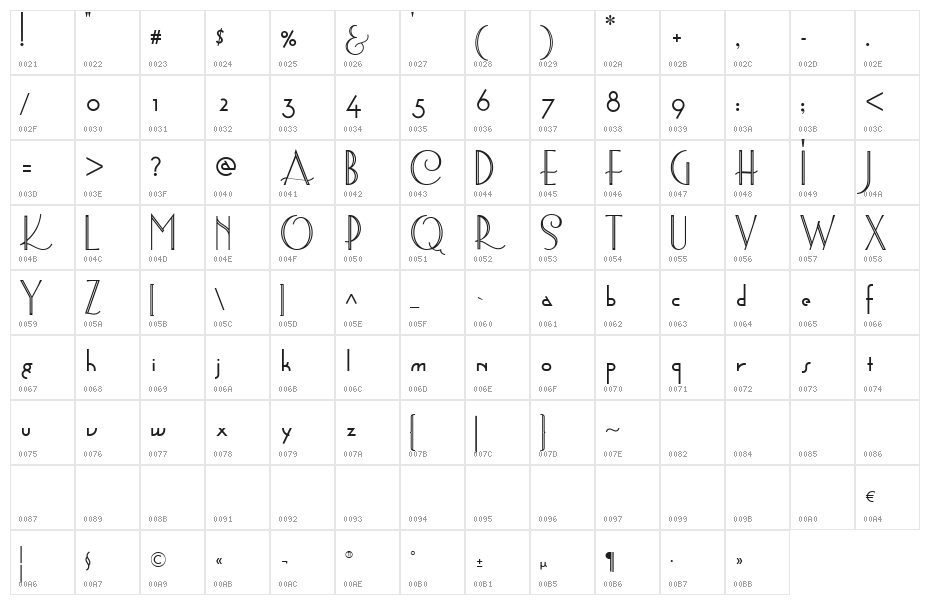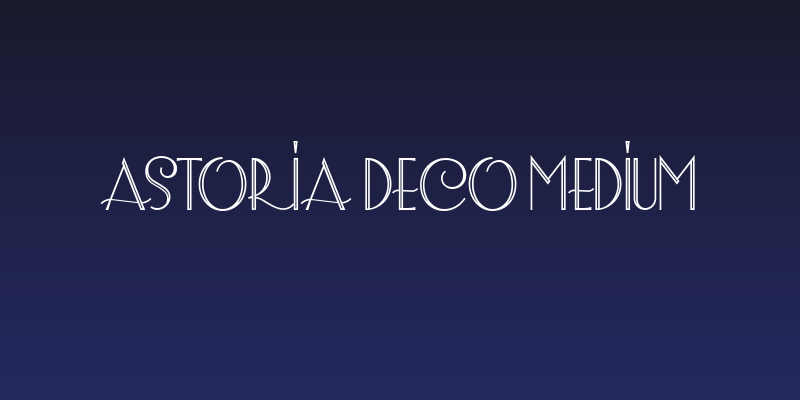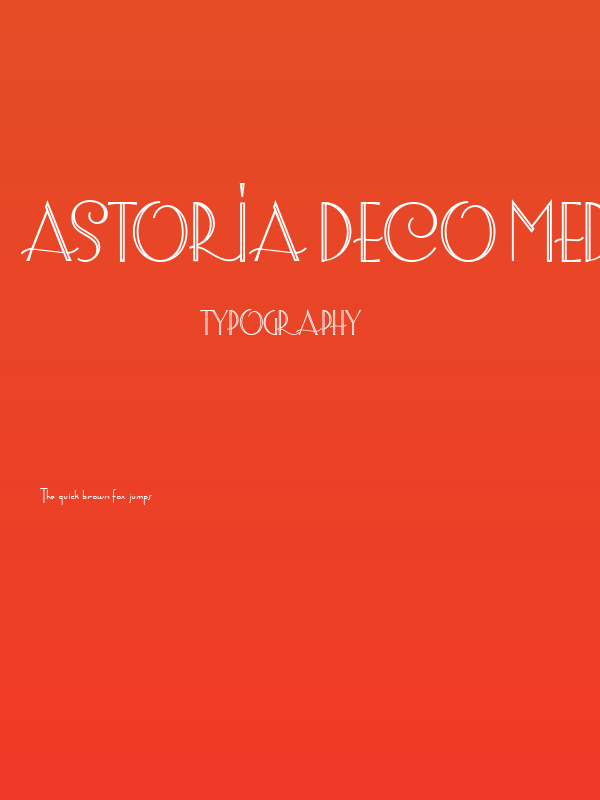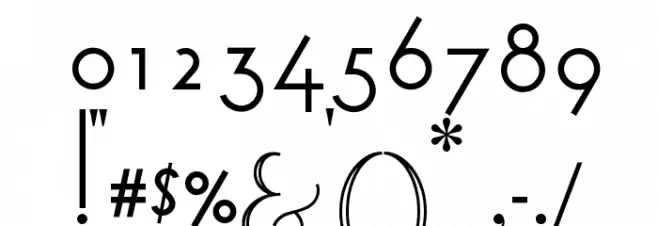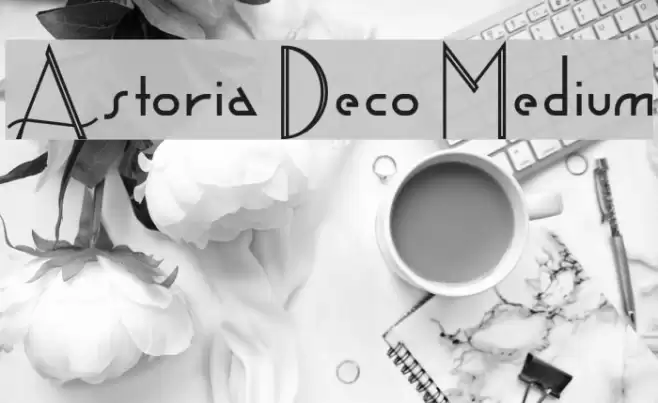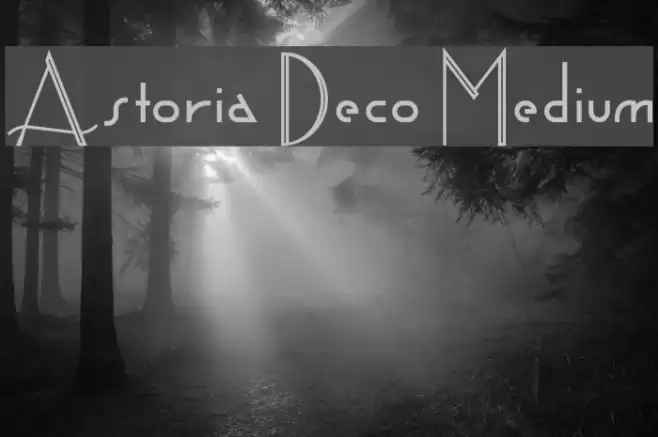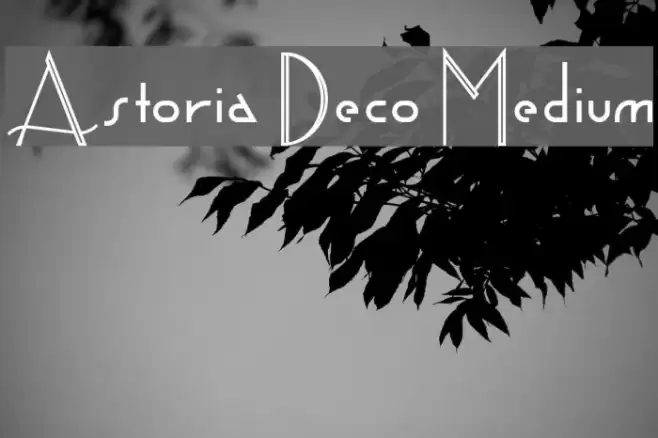
Astoria Deco Medium Font
Astoria Deco Medium Description
This font features a distinct Art Deco style, characterized by its geometric shapes and elegant lines. The uppercase letters are tall and slender, with a sophisticated flair that includes subtle curves and sharp angles. The lowercase letters maintain a similar aesthetic, offering a harmonious balance between formality and creativity. Numbers and special characters are designed with the same attention to detail, ensuring consistency across all elements. The overall appearance is both stylish and timeless, making it suitable for a variety of design applications.